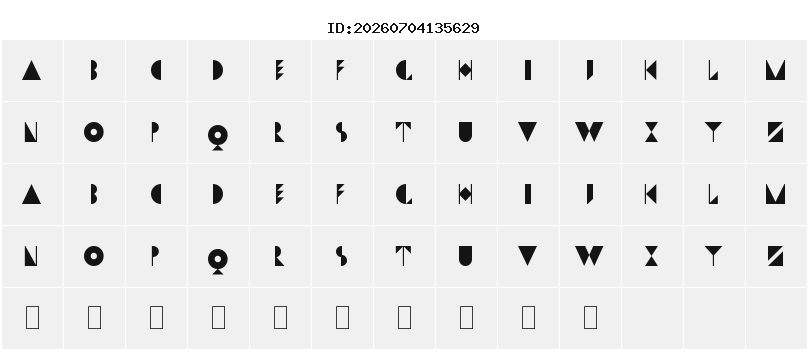
• Font Name: Dwiggins Initials KK
• Font ID: Dwiggins Initials KK
• Full Font Name: Dwiggins Initials KK
• Character Count: 58
• Designer: W.A. Dwiggins
• Description: Dwiggins Initials is based on a 1930 unnamed sketch by W.A. Dwiggins. Initial capitals only.